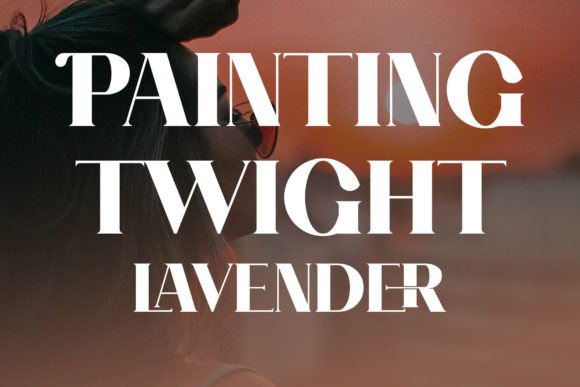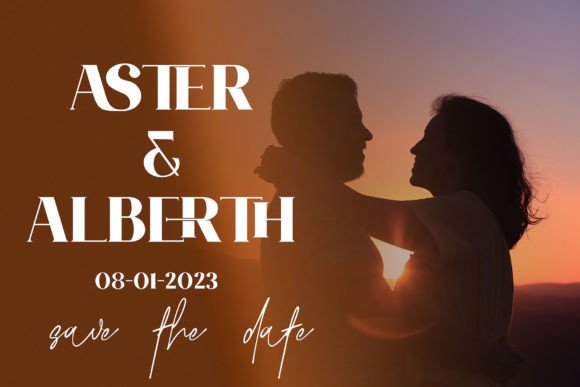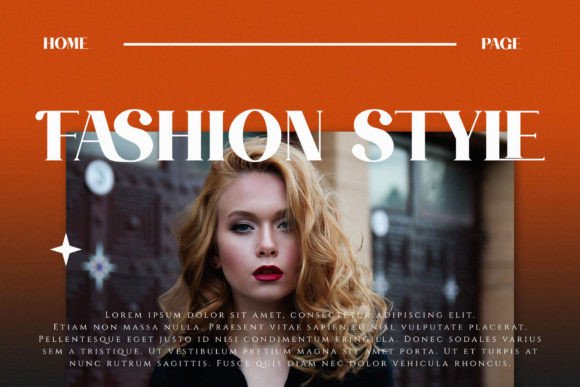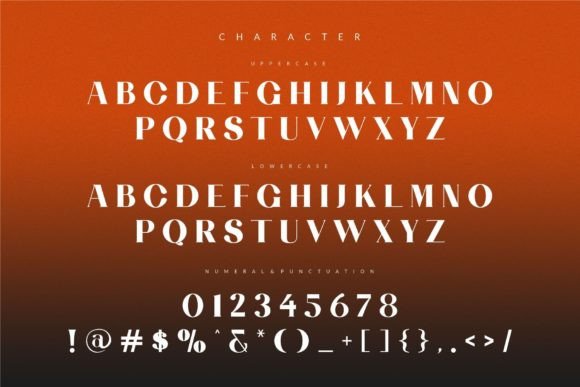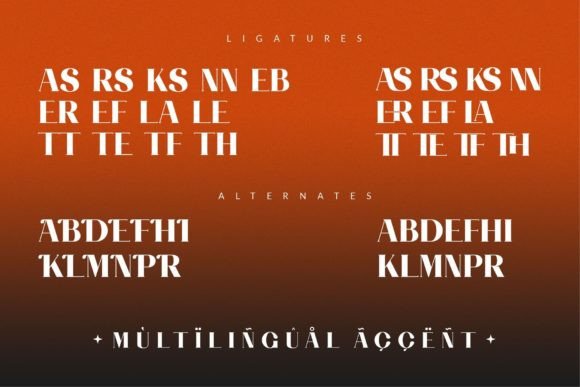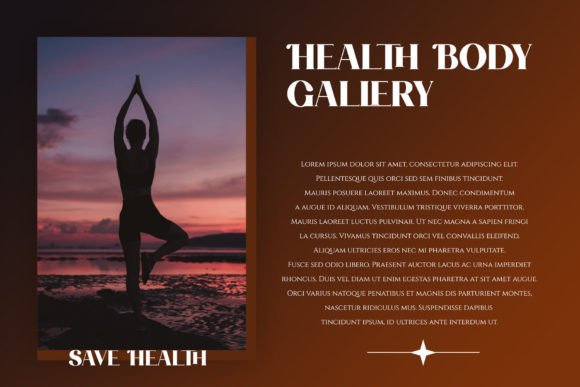
Introduction to Rakse Roast Font Font
Fonts play a crucial role in design, and the Rakse Roast Font font is a typeface that brings both character and versatility to any project. Whether you’re working on a branding project, a website, or a print design, the Rakse Roast Font font offers a unique style that can elevate your work.
Rakse Roast is an elegant and modern sans serif font.
This minimalist and clean vibe can easily apply to your favorite designs such as book covers, magazines, social media posts, invitations, and so much more .
Key Features of Rakse Roast Font Font
Why Choose Rakse Roast Font Font?
The Rakse Roast Font font is more than just a typeface – it’s a design tool that helps you communicate your message with style and clarity. Its unique character set and versatile design make it suitable for a wide range of applications, from elegant invitations to bold headlines.
With its carefully crafted letterforms and balanced proportions, the Rakse Roast Font font ensures readability and visual appeal across all mediums.
What makes Rakse Roast Font font special?
The Rakse Roast Font font stands out with its unique design, exceptional readability, and versatility across various design applications.